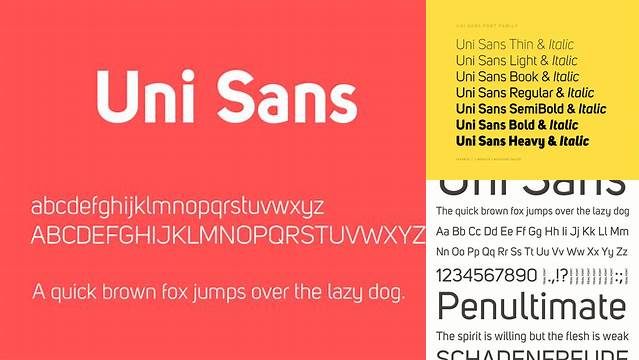
Hey everyone! If you're on the hunt for a bold, modern, and versatile font that can make your designs pop, you've probably stumbled upon Uni Sans. It's a popular choice for everything from website headers and logos to print materials. The good news is, you can often find a Uni Sans font free download! In this article, we'll dive deep into everything you need to know about Uni Sans, where to get it, how to use it, and why it's such a fantastic font choice. We'll cover the essential info so you can start using this awesome font in your projects, whether you're a seasoned designer or just starting out. Are you ready to level up your typography game? Let's get started!
What is Uni Sans Font and Why Do You Need It?
So, what exactly is Uni Sans? It's a sans-serif typeface known for its clean lines, strong presence, and a touch of modernity. Designed by Svetoslav Simov, Uni Sans has gained popularity due to its versatility and ability to convey a sense of both professionalism and creativity. Uni Sans comes in a variety of weights, from thin to heavy, allowing you to use it for everything from subtle text to eye-catching headlines. What makes Uni Sans stand out? Its geometric shapes, combined with slightly rounded corners, give it a friendly yet authoritative feel. Think of it as the perfect blend of classic and contemporary. Its clean and readable design makes it ideal for various applications.
Whether you're creating a website, designing marketing materials, or crafting a presentation, Uni Sans can elevate your work. Imagine your brand identity boosted by this font: a memorable logo, easily-readable body text, and headers that instantly grab attention. It's great for both digital and print projects, making it a flexible option for any designer. One of the best parts about Uni Sans is how well it works across different platforms and devices. Its clear design ensures that your text looks great, no matter the screen size or resolution. The font is suitable for a wide range of projects including websites, posters, and social media graphics. Whether you need a font for a professional corporate branding or a creative personal project, Uni Sans won't disappoint. Furthermore, its readability makes it perfect for long-form content such as blog posts or ebooks. You can effectively use it to ensure a pleasant reading experience for your audience.
So, why do you need Uni Sans? Because it's a versatile, stylish, and accessible font that can significantly improve the look and feel of your projects. Its bold and clean style ensures that your message is clear, making a lasting impression on your audience. With its range of weights, you can create a cohesive design system where all your text elements work harmoniously together, making your designs more polished and professional. By incorporating Uni Sans, you're not just choosing a font; you're choosing a powerful tool that can elevate your designs. The consistent design across different weights makes it easier to create a unified brand identity, which is essential in today's competitive landscape. By creating such designs, you ensure that your message will be delivered clearly. The easy availability, combined with its impactful design, makes it a must-have font for anyone looking to create visually stunning content.